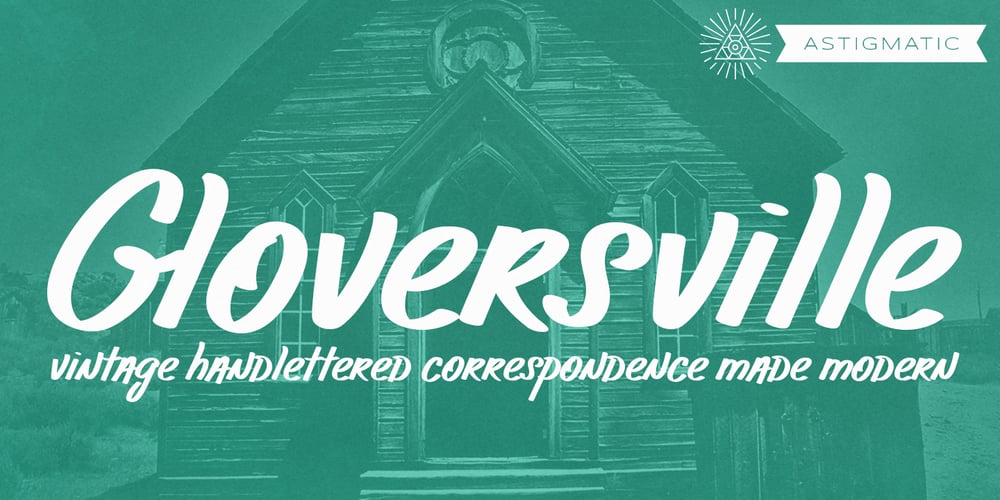
Gloversville AOE Font Family was designed by Brian J. Bonislawsky and published by Astigmatic. Gloversville AOE contains 1 styles and family package options. Gloversville is a casual marker handwritten style font. Originating from some turn of the century letters to a defunct blinds and shutters company in Gloversville, NY, what began as a limited reference of Capitals, lowercase, numbers and punctuation was expanded to a full typeface with an expanded language glyph set. It contains a unique mixing of capitals and lowercase in the lowercase glyph slots to create a unique typesetting feel. Perfect for a range of designs that require a heavy handed personal touch.